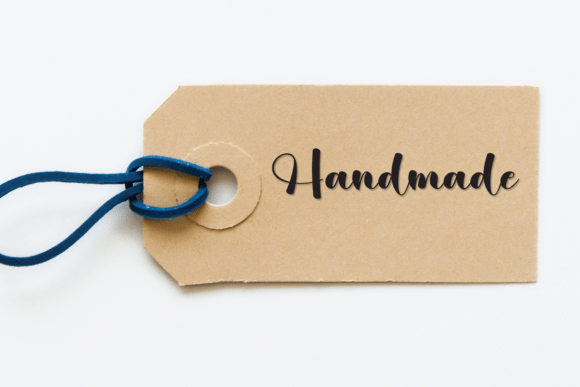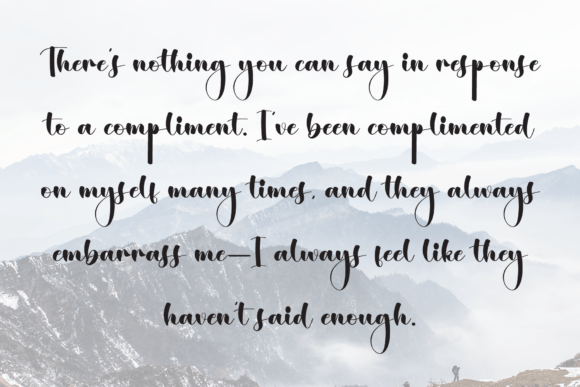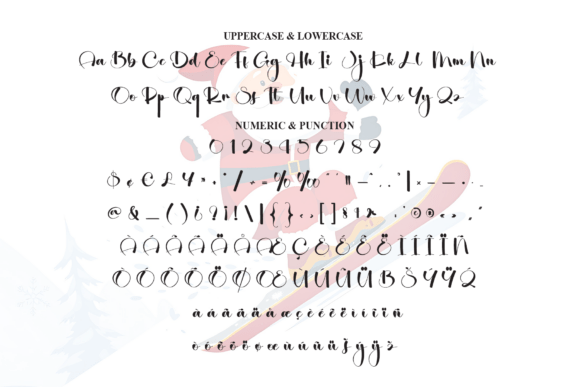
Introduction to Santa Snowboard Font
As a designer, you know the thrill of bringing a creative project to life. The moment when all the elements come together, and your vision starts to take shape. For me, it’s the feeling of finding that perfect font that makes all the difference. And that’s exactly what I’m excited to share with you today – the Santa Snowboard Font, a high-quality design resource that’s sure to elevate your next project.
Imagine adding a touch of winter wonder to your social media post, or giving your product packaging a festive feel. The Santa Snowboard Font is the perfect tool to help you achieve that. With its transparent background and seamless integration into popular design software, you’ll be able to create stunning visuals that stand out from the crowd.
Key Features of Santa Snowboard Font
- High-quality design resource for creative projects, ideal for winter-themed graphics and designs.
- Unique, fun, and playful font style, perfect for adding a touch of festive cheer to your designs.
- Features a bold and eye-catching design, with a size range of 12-72 points, suitable for various design applications.
Honest Review: Santa Snowboard Font
I recently had the chance to work with the Santa Snowboard Font for a creative project, and I must say it was a great experience. This font is a high-quality design resource that adds a fun and playful touch to any design.
The font comes with a transparent background, which makes it easy to customize and work with. I particularly liked the ability to combine it with other fonts and graphics to create a unique design.
- ✨ Great for holiday-themed designs and sports-related projects
- ✨ Versatile and easy to customize
However, there are a few limitations to consider. The font may not be suitable for professional or formal designs, and some users may find it too playful or childish.
- ⚠️ May not be suitable for professional or formal designs
- ⚠️ Some users may find it too playful or childish
Overall, I was impressed with the Santa Snowboard Font and would recommend it to designers looking for a fun and creative design resource.
– Holiday-themed designs and marketing materials
– Winter sports and outdoor-related projects
– Creative projects that require a fun and playful font